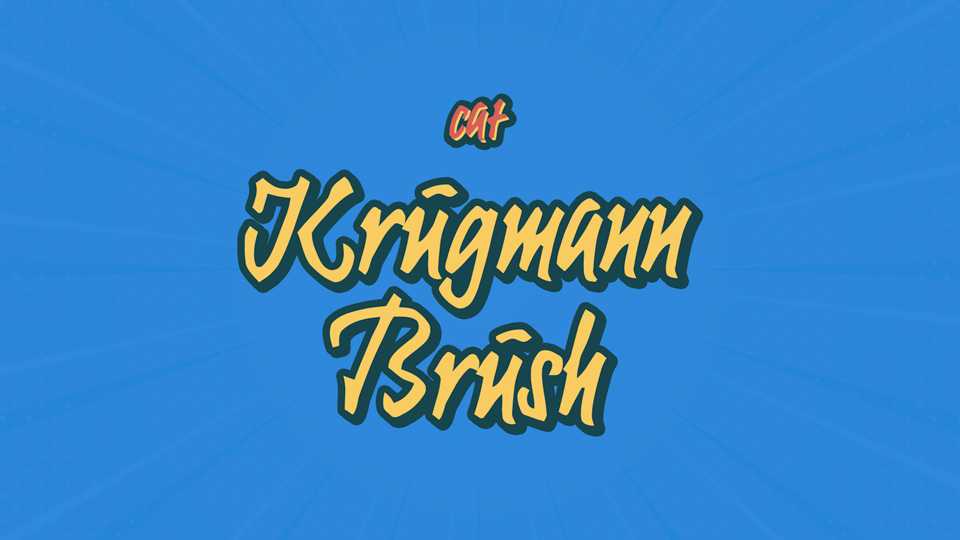
Download Krugmann Brush font, a casual hand painted brush font with a lot of ligatures to create a natural handwriting look. Krugmann Brush font perfectly fits for crafts, packaging, advertising and other creative graphics.